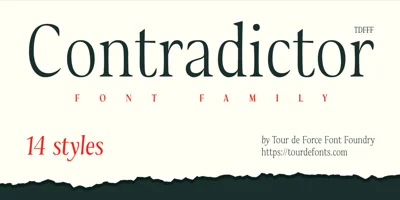
Contradictor Font
Looking for a bold and rebellious typeface that stands out from the crowd? Contradictor Font delivers a strong, edgy aesthetic perfect for streetwear branding, music album covers, poster designs, and any project that demands attitude. Its sharp angles and dynamic shapes create a striking visual impact that grabs attention instantly.
Whether you’re designing bold logos, eye-catching flyers, or standout merchandise, Contradictor Font brings fearless energy and style to your typography.